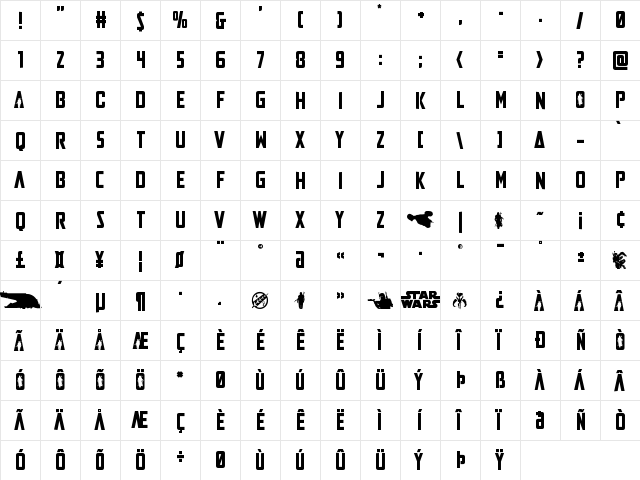
Mandalore Rough Regular
Design Context for Mandalore Rough Typeface
Mandalore Rough embraces imperfection — its rough, textured character adds raw authenticity to designs that want to feel lived-in and unconventional.
A strong fit for alternative music projects, graffiti-adjacent design, and anything that deliberately resists polish.
Pro Tip: Use Mandalore Rough at larger sizes where the texture and irregularity of each letterform can be clearly seen — it loses its character at small sizes.